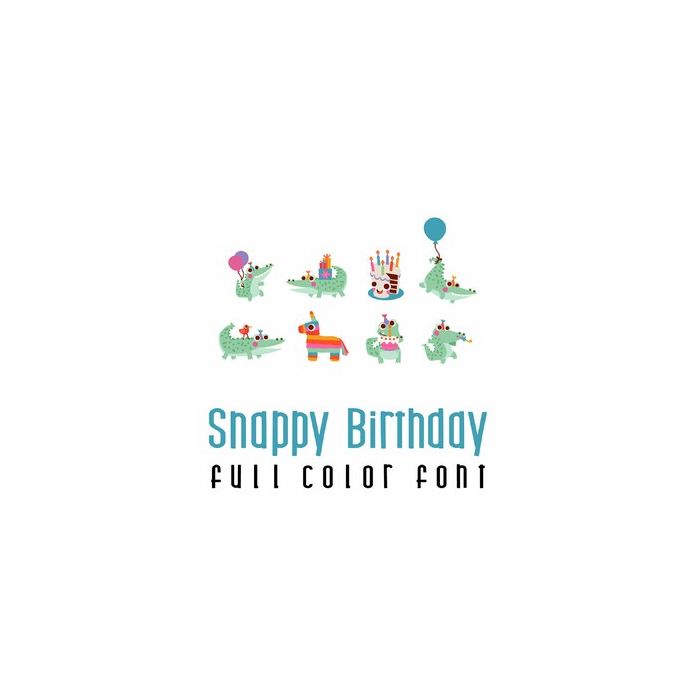
This adorable full-color doodlebat font features 26 alligators ready to party! Perfect for cards, crafts, gifts, decor, scrapbook pages, planner stickers, and more!